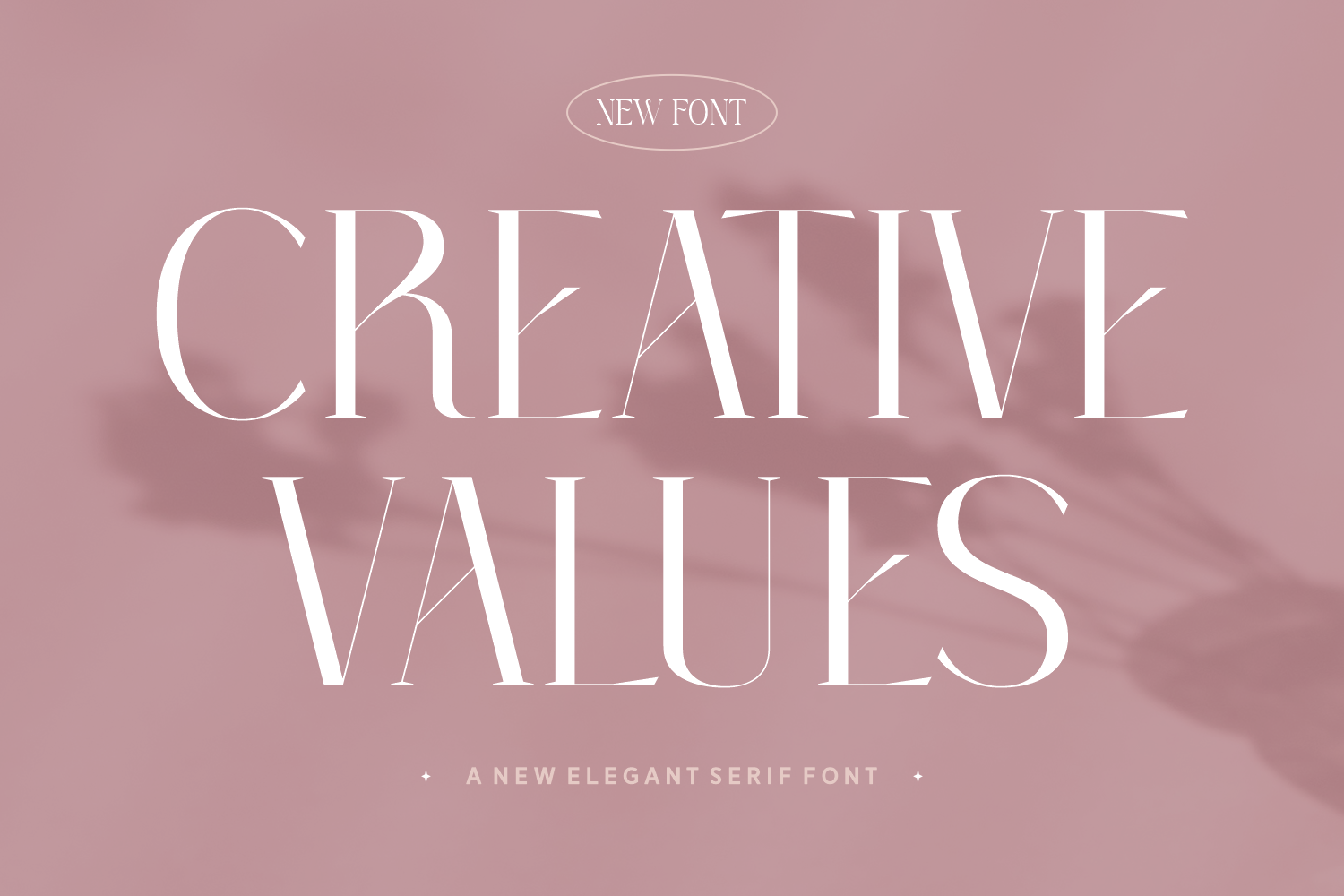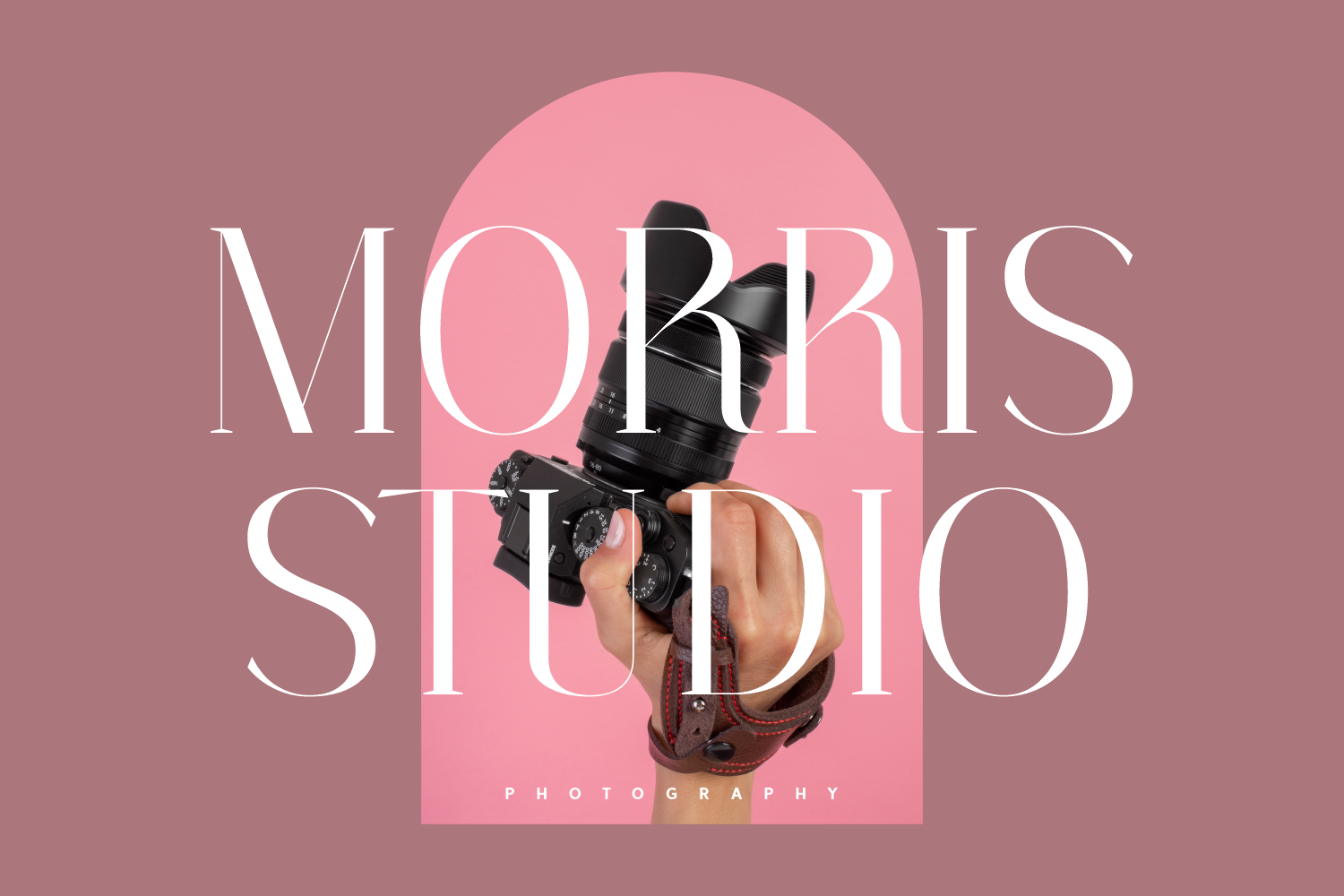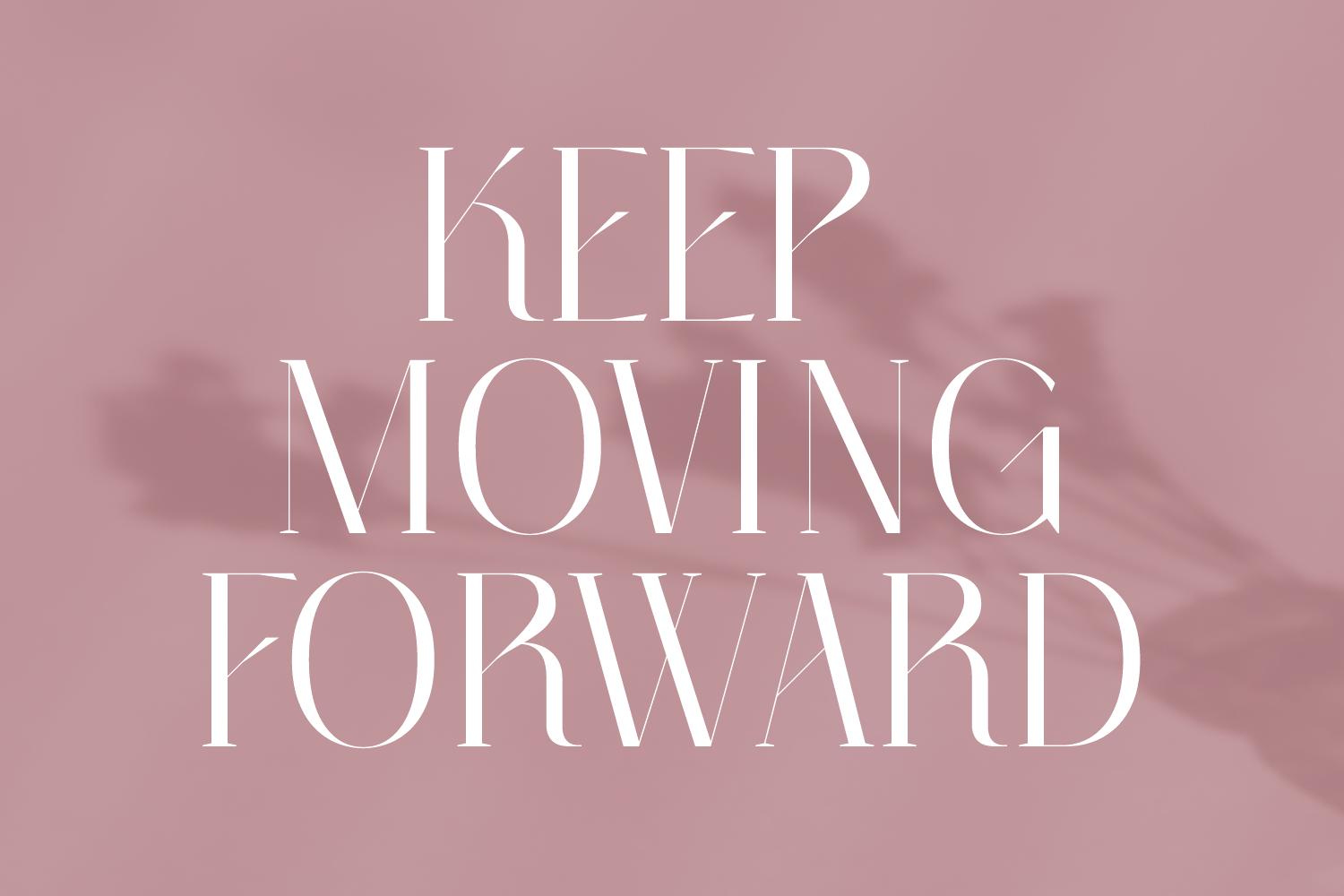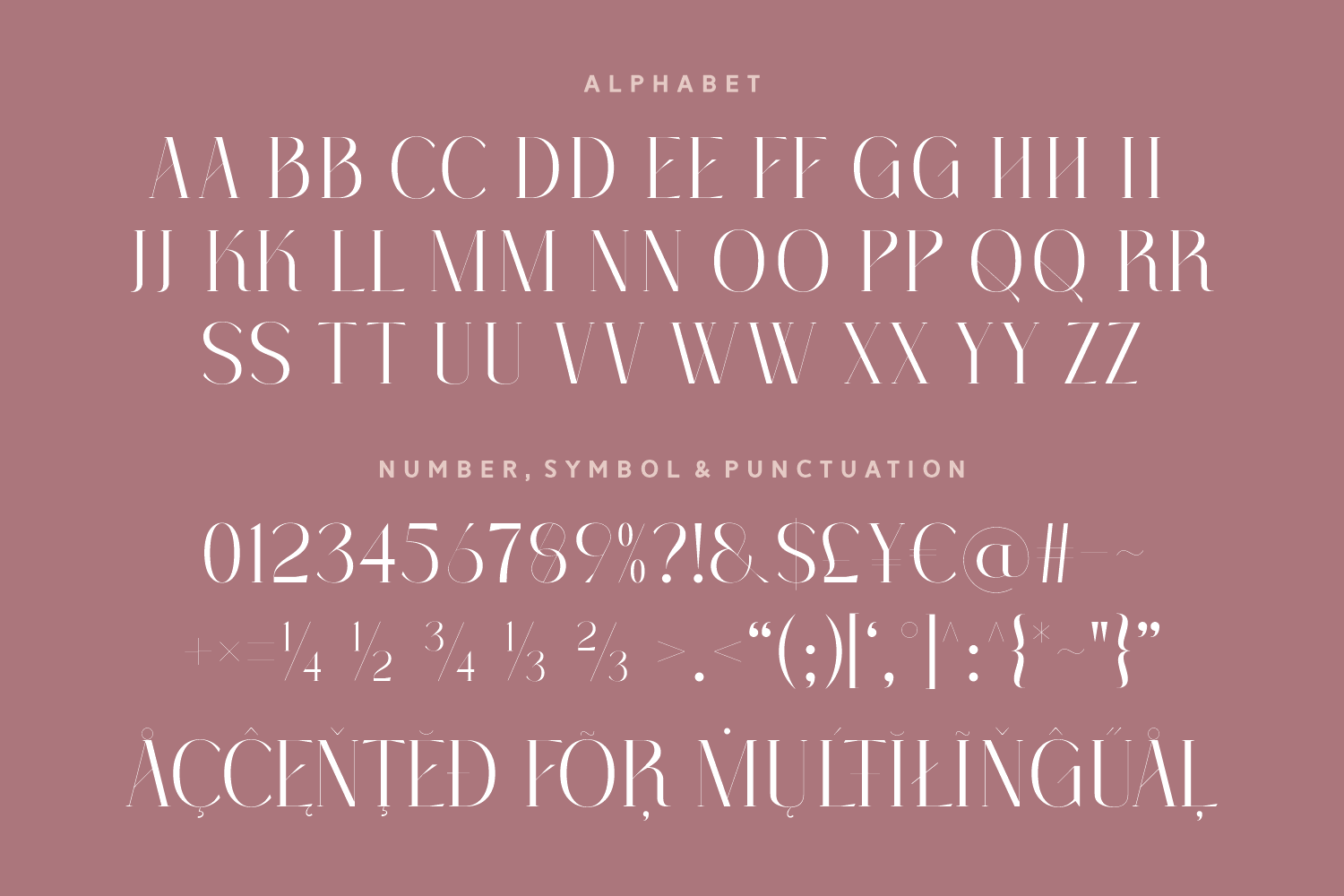
Creative Values is a refined, high-fashion serif font with ultra-thin strokes and sharp elegance. Its airy spacing and elongated forms make it ideal for editorial layouts, luxury branding, fashion campaigns, and minimalist design.
Whether in large display sizes or subtle headlines, this font makes a confident, graceful statement. Design with clarity, class, and a sense of timeless modernism.